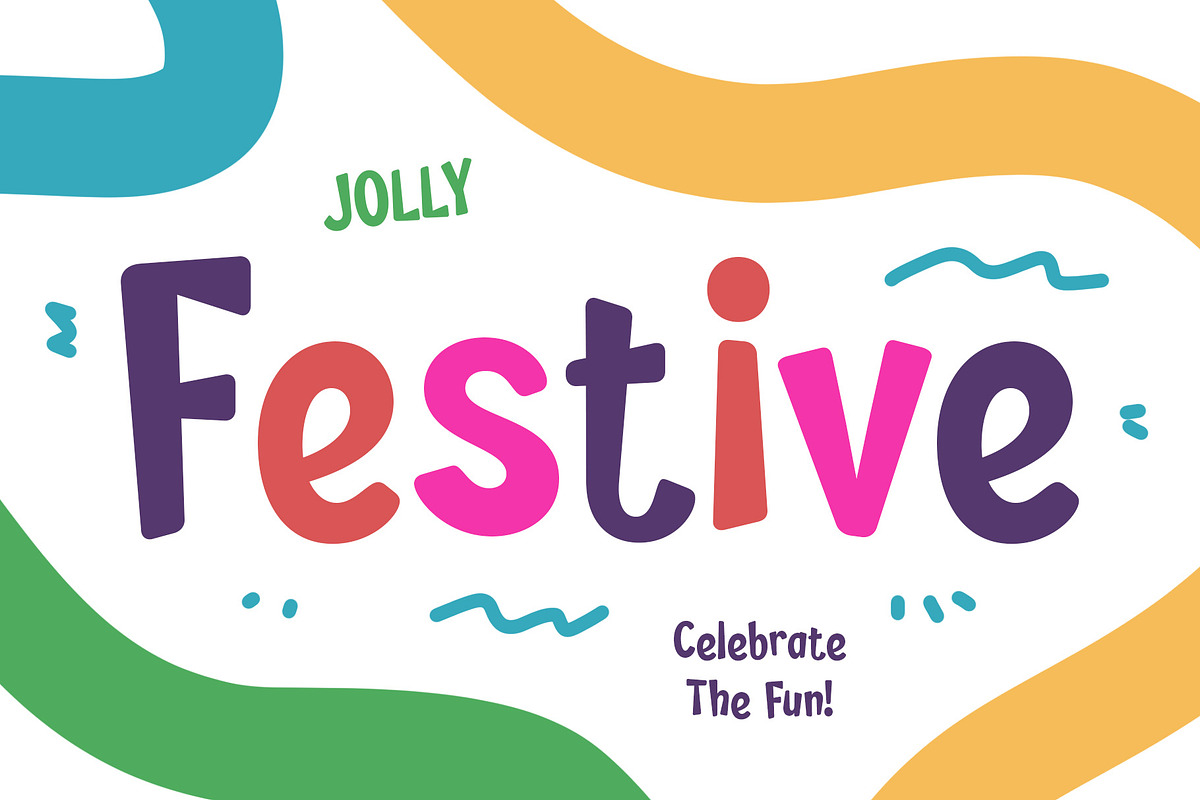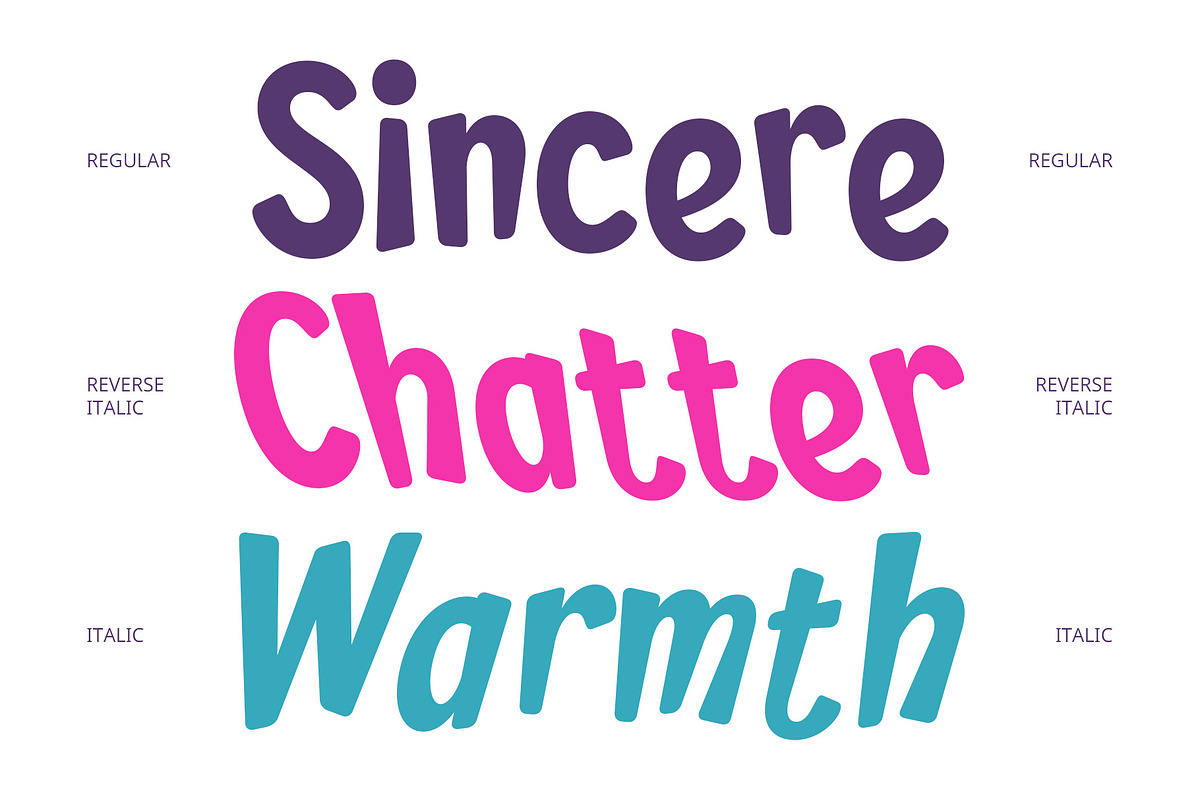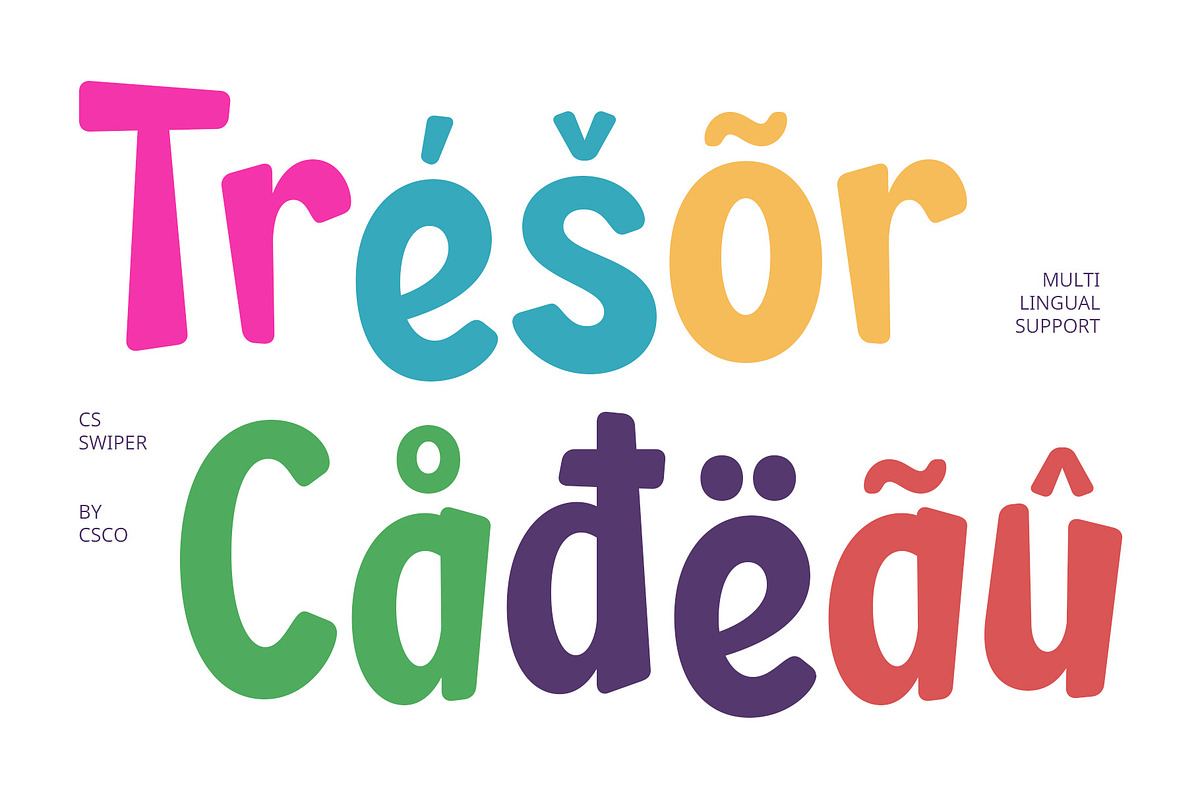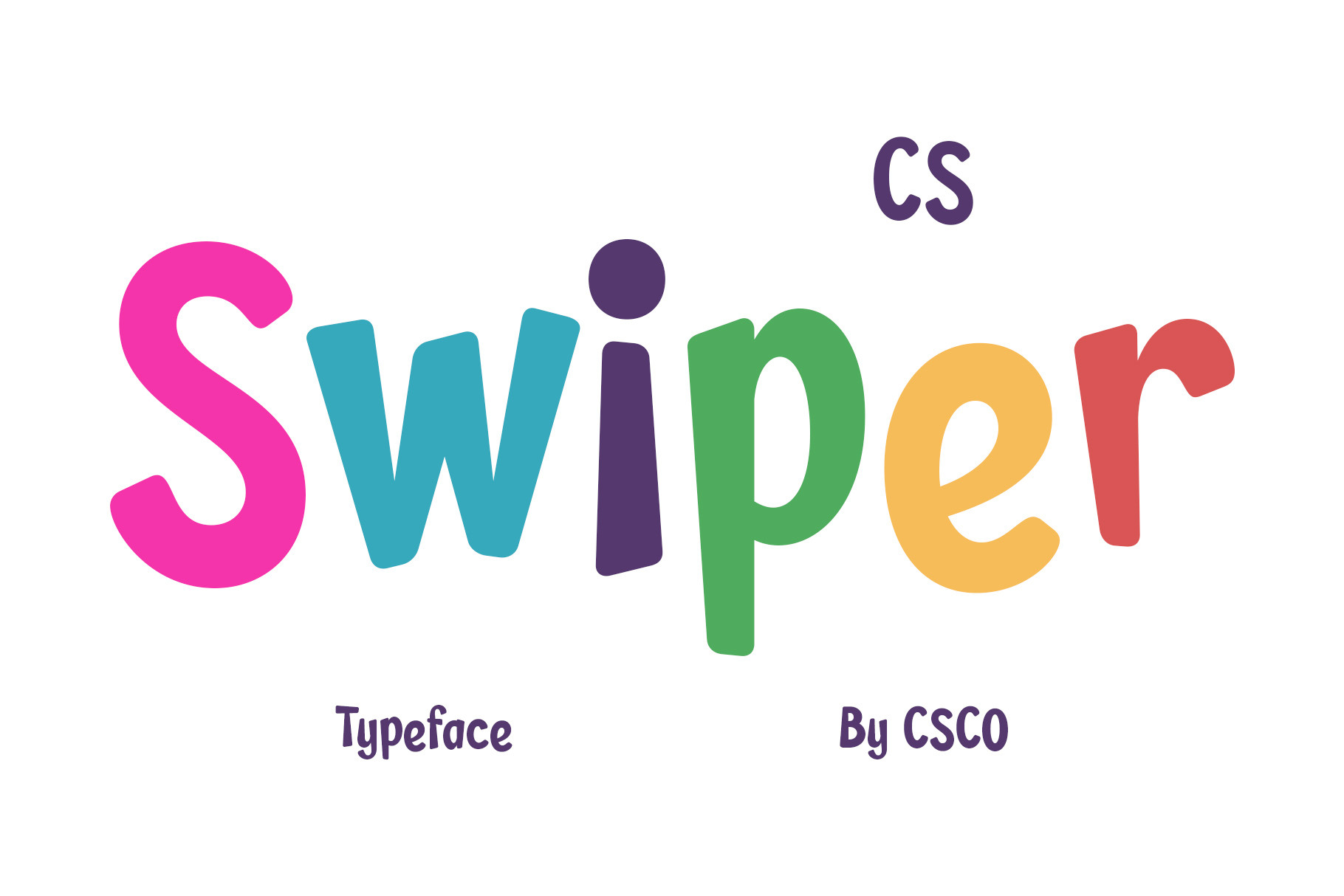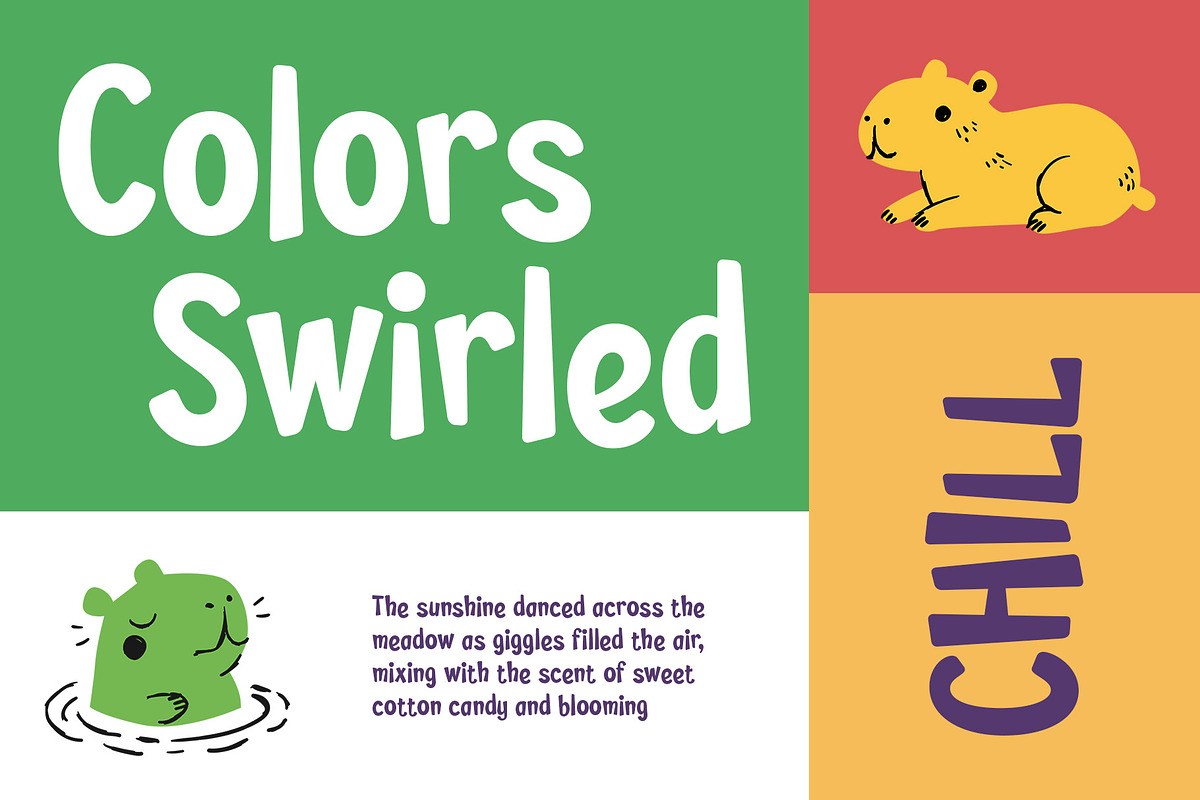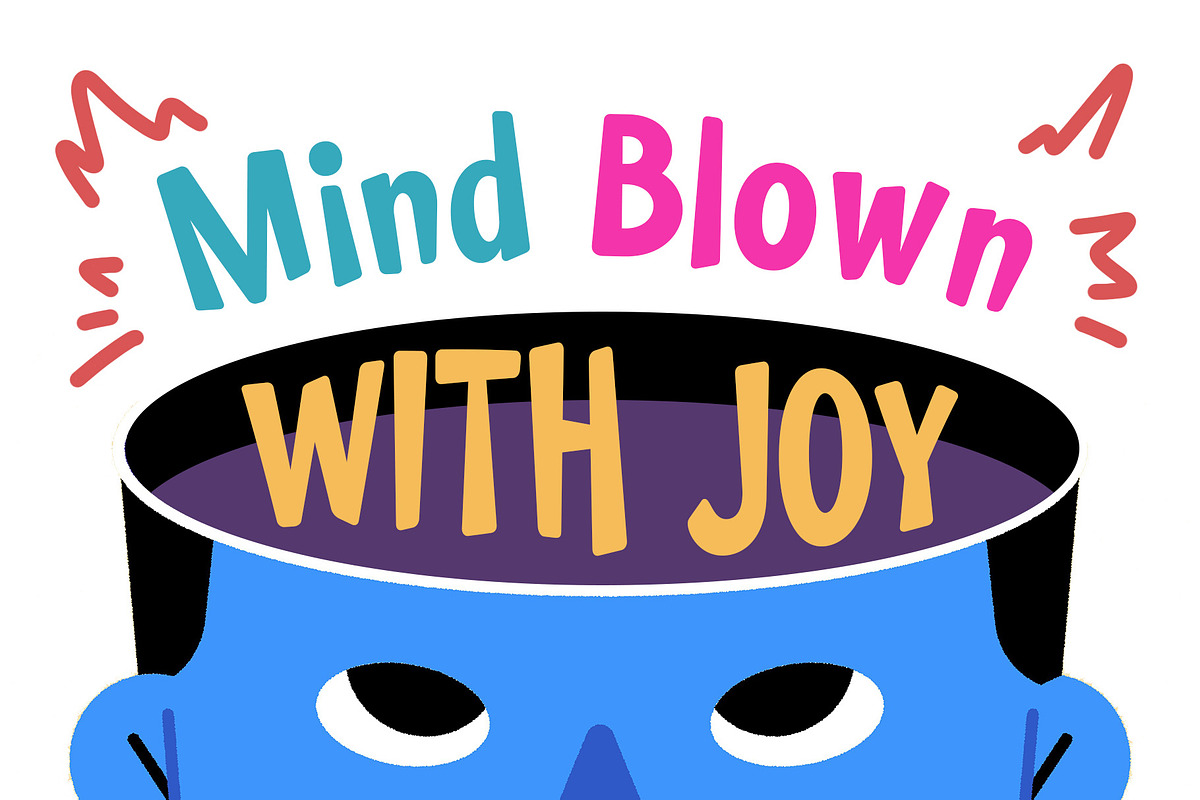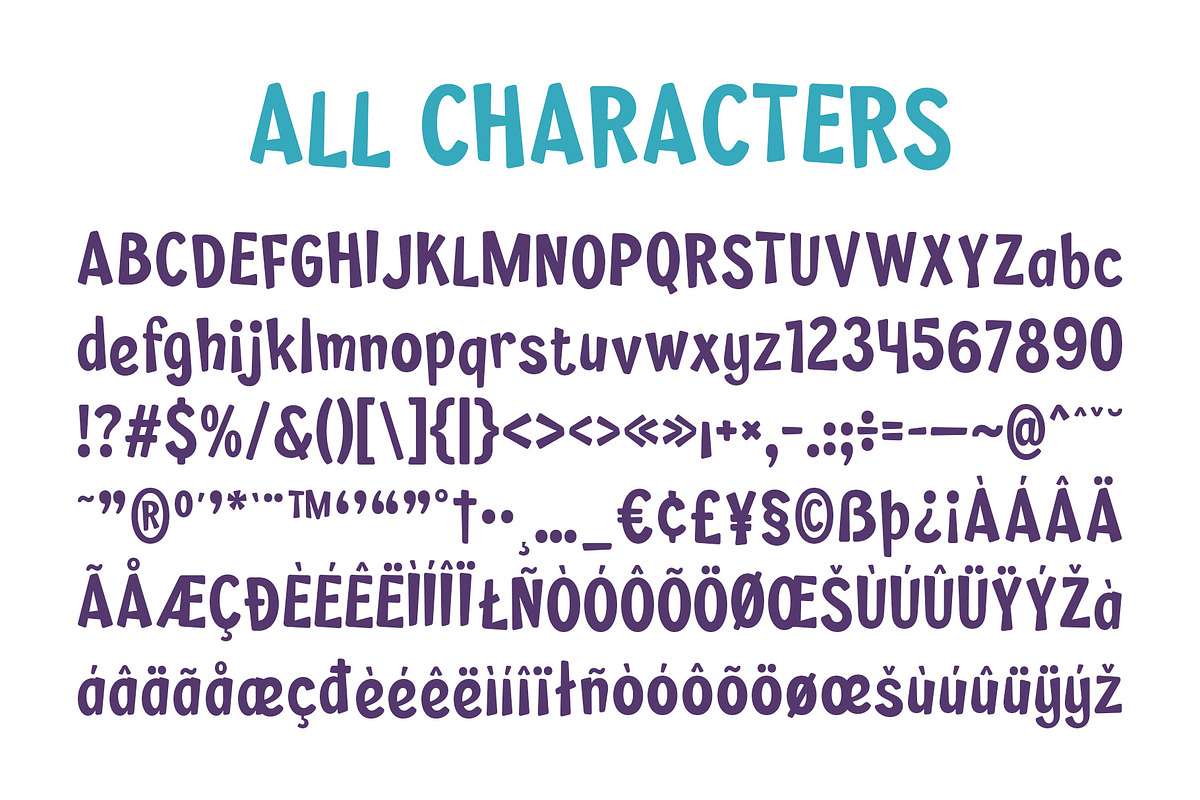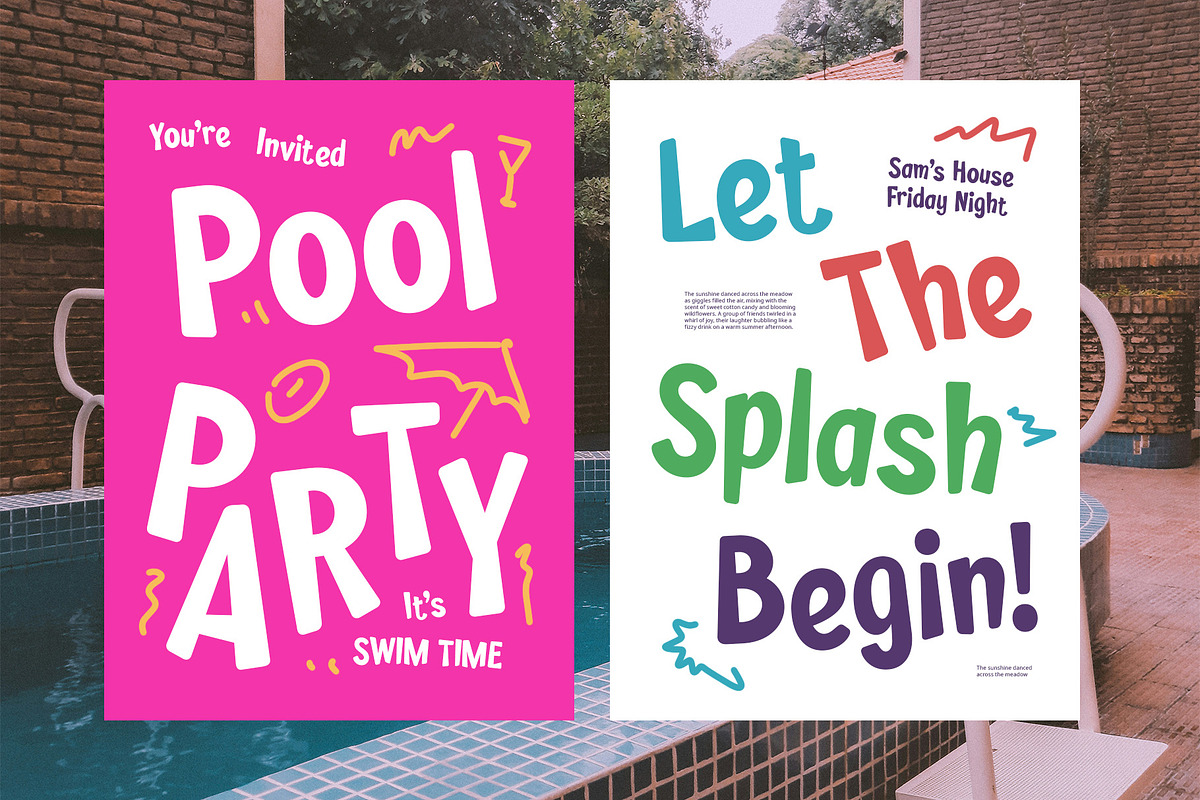
CS Swiper – Cute Font
CS Swiper – Cute Font: Friendly, Fun, and Playful Typography
Smooth, Rounded, and Cheerful Shapes CS Swiper is a cute display font that blends modern design with playful, cute elements. Its smooth lines and rounded forms give it a warm, approachable feel, while its balanced proportions create a cheerful, positive atmosphere. This font is perfect for projects that seek to capture attention with a light-hearted, friendly vibe.
Ideal for Children’s Designs and Events With its joyful and fun character, CS Swiper Font is perfect for children’s books, event posters, festival brochures, and other cheerful designs. Whether you’re creating marketing materials for a playful brand or designing invitations for a fun event, CS Swiper delivers the perfect touch of personality and charm.
Versatile and Colorful for Various Projects CS Swiper – Cute Font adds a burst of color and energy to any design. Its friendly appearance makes it versatile enough for a variety of cheerful projects. From toys and educational materials to playful branding, this font enhances the overall vibe, bringing a joyful spark to any design. It’s a great choice for anyone seeking a light, fun, and vibrant look.